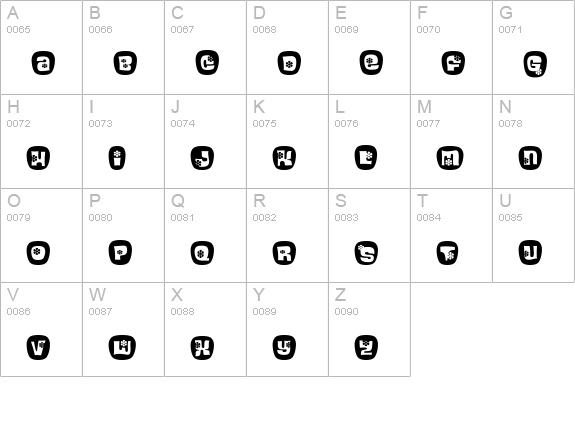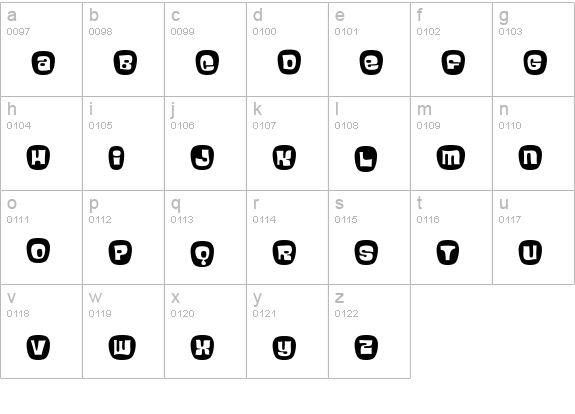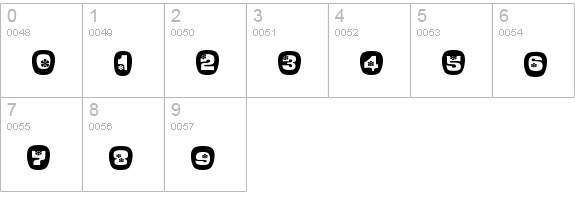
BlackcurrantCameo Font Details
BlackcurrantCameo font is a stylish and elegant typeface that is perfect for adding a touch of sophistication to your projects. With its unique design and eye-catching appearance, this font is sure to make a statement. Whether you're working on a branding project, website design, or any other creative endeavor, BlackcurrantCameo font will elevate your work to the next level. The font features a sleek and modern look, with clean lines and smooth curves that give it a contemporary feel. Its versatile design makes it suitable for a wide range of applications, from logos and headlines to body text and more. With its bold and distinctive characters, BlackcurrantCameo font is sure to grab attention and leave a lasting impression on your audience. Best of all, BlackcurrantCameo font is available for free download at FontsMarket.com. This means you can easily access this premium font without having to spend a dime. So why wait? Add BlackcurrantCameo font to your font collection today and start creating stunning designs that stand out from the crowd.